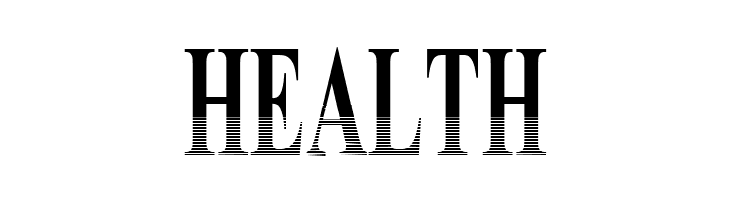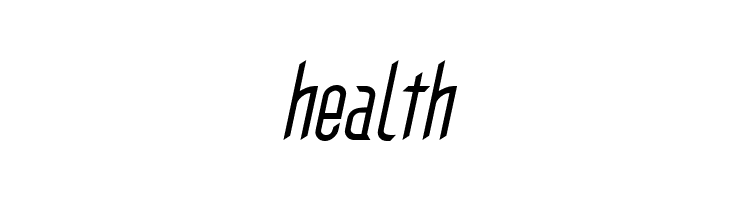
A classic serif typeface with elegant proportions and refined serifs.
A classic serif font with high contrast and elegant serifs, ideal for formal and sophisticated designs.
A classic serif typeface with modern elegance and excellent readability.
A classic serif font with elegant strokes and a vintage aesthetic.
A bold, classic serif font with strong, thick strokes and pronounced serifs.
A classic serif font with medium contrast and elegant proportions.
A modern, italicized font with elongated, narrow characters and medium contrast.
A classic serif font with elegant lines and medium contrast, perfect for traditional designs.
A modern sans-serif font with clean lines and balanced proportions.